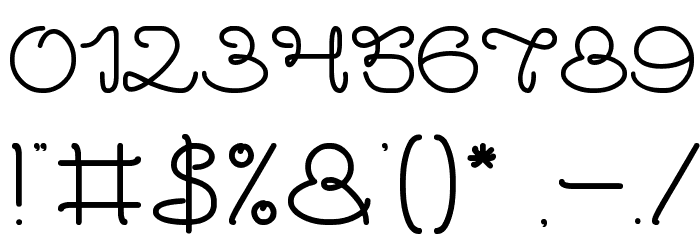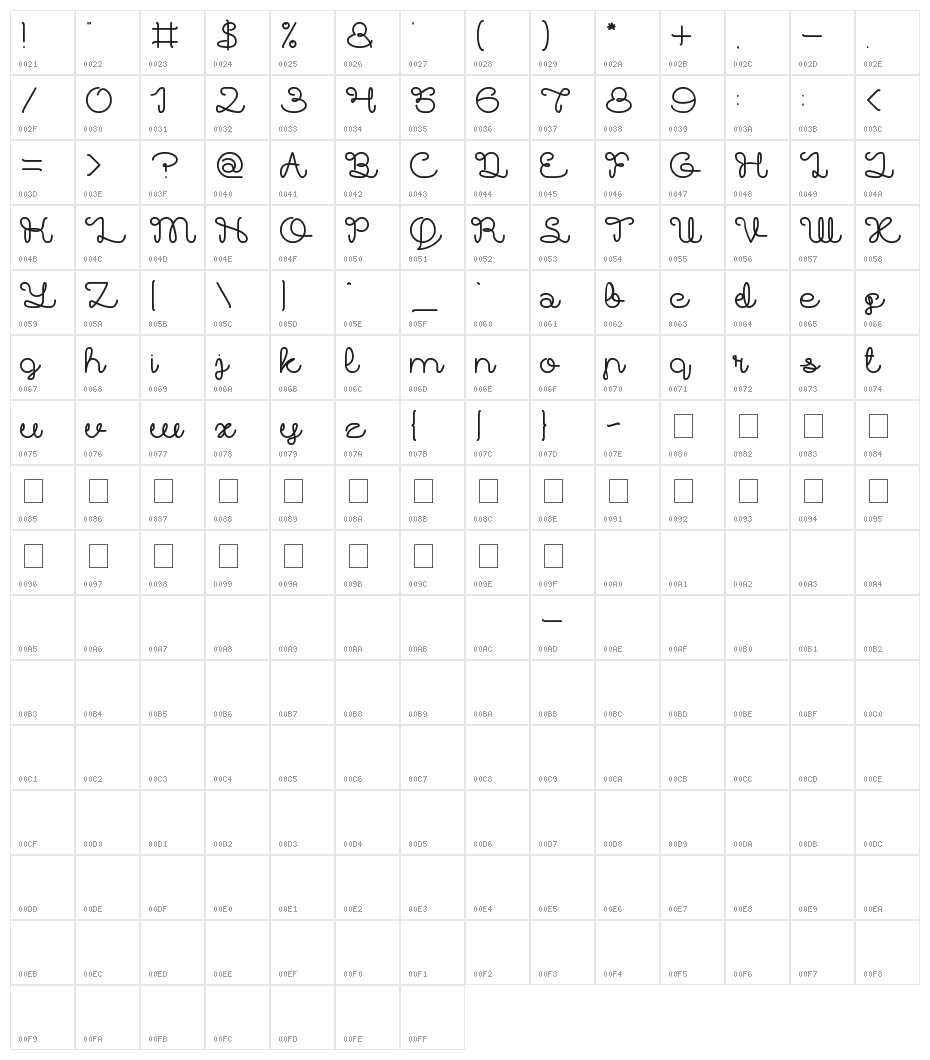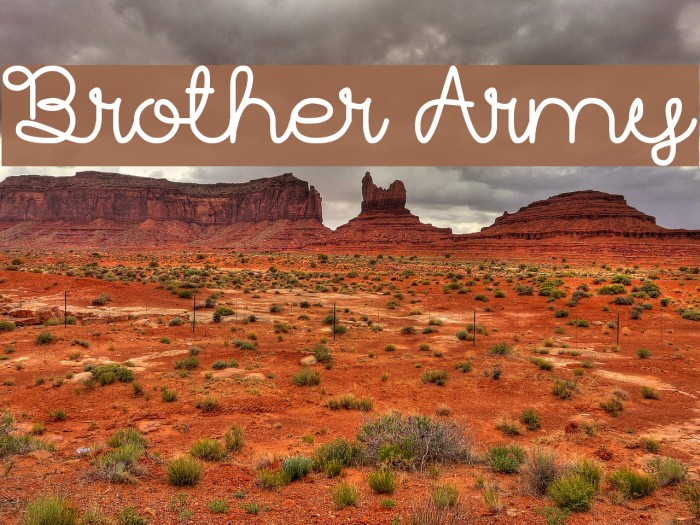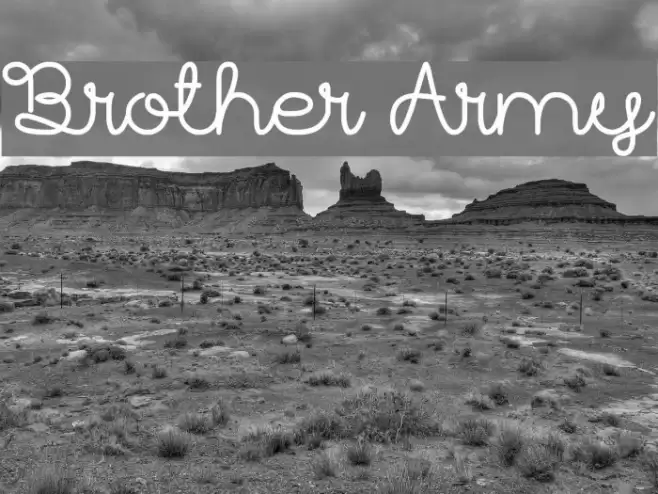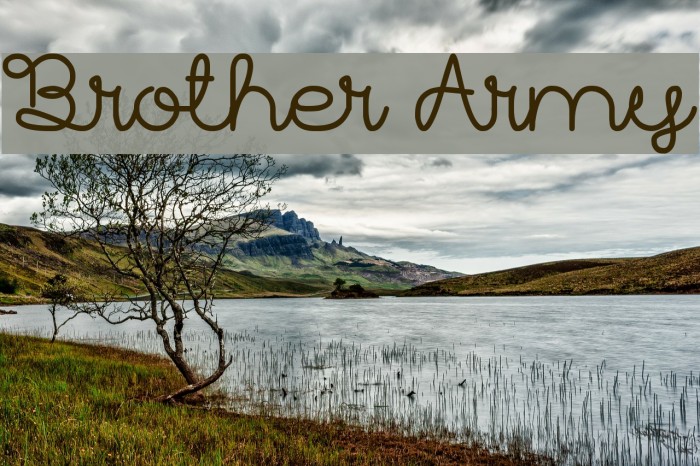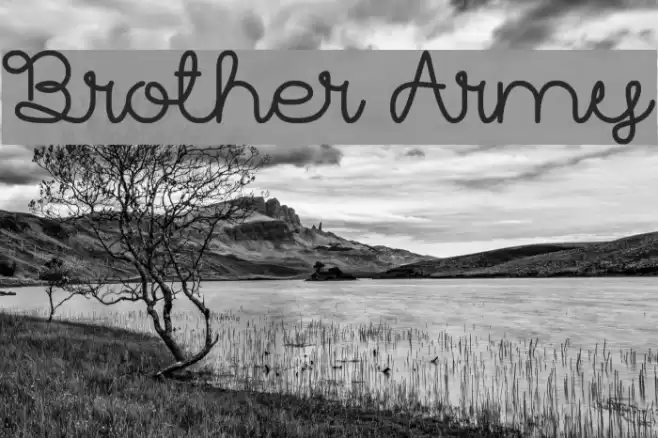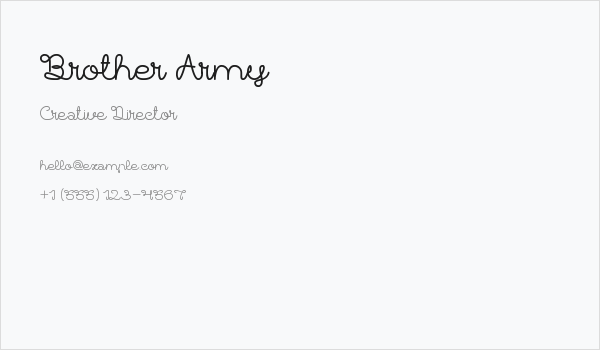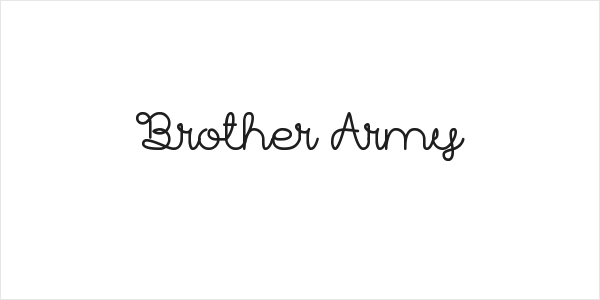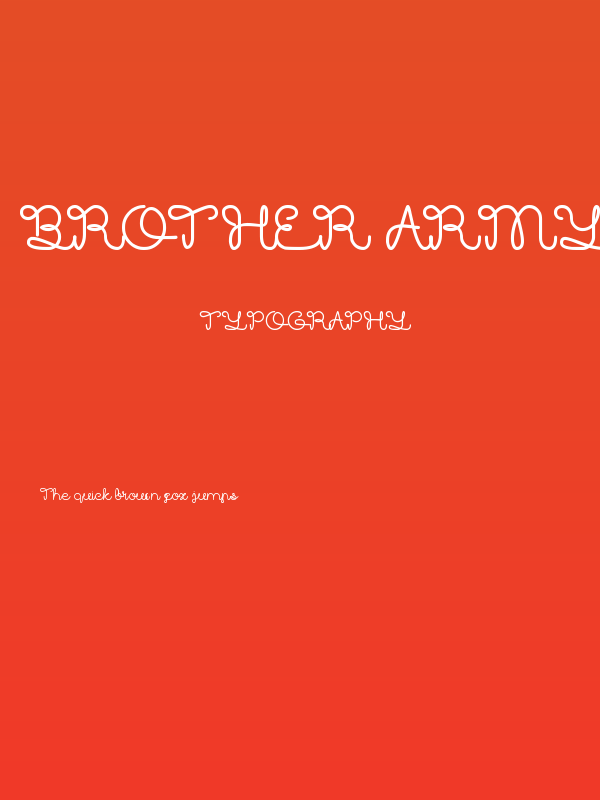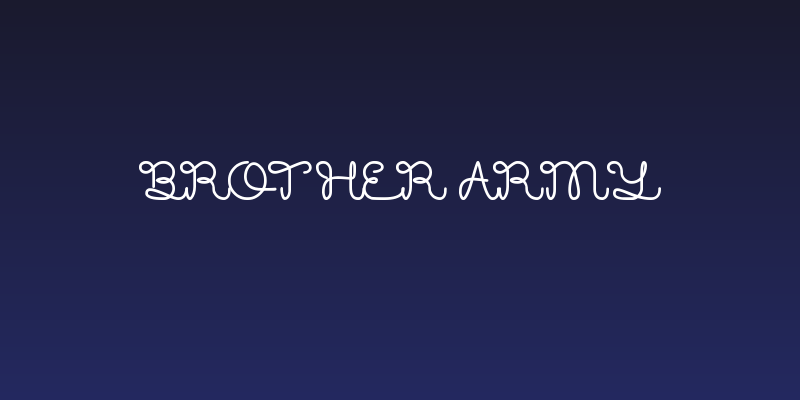
Brother Army Font
Brother Army Description
This font features a playful and whimsical design with a continuous, flowing script style. Each character is crafted with a smooth, rounded appearance, creating a sense of movement and fluidity. The uppercase and lowercase letters maintain a consistent height, contributing to a harmonious visual balance. The numbers and special characters are designed with the same playful curves, ensuring a cohesive look across all elements. The font's unique style makes it stand out, offering a creative and artistic touch to any project.
| Proposed Projects | Ideal for creative projects such as greeting cards, invitations, children's books, and playful branding. |